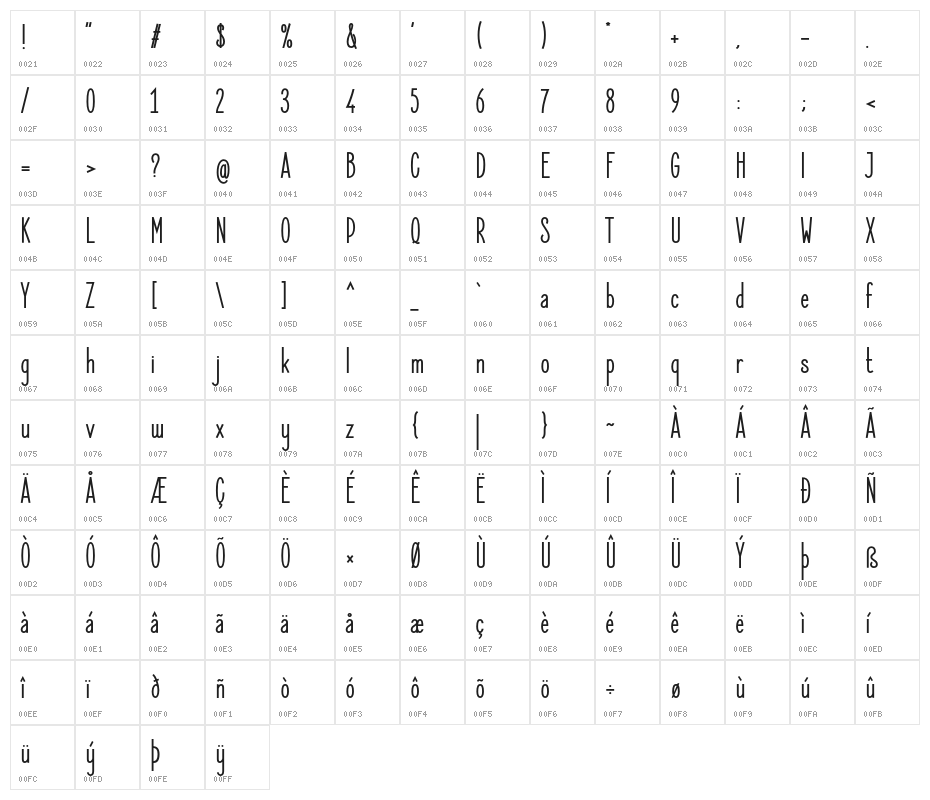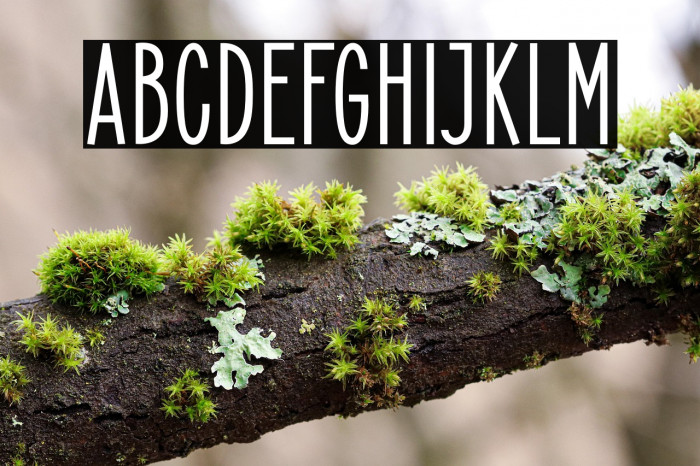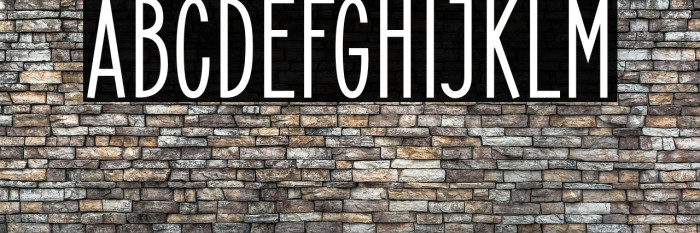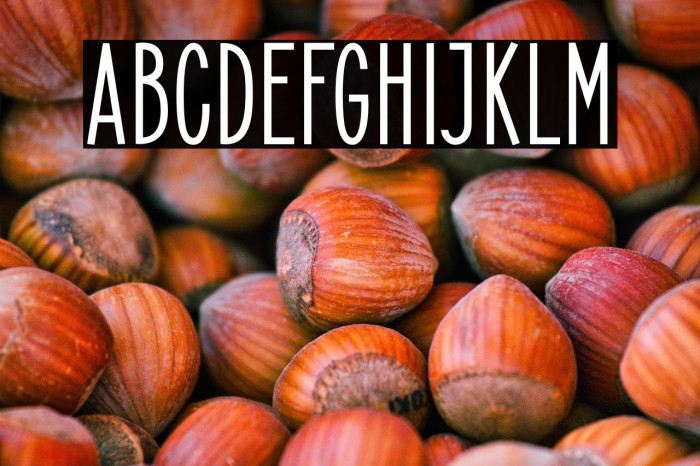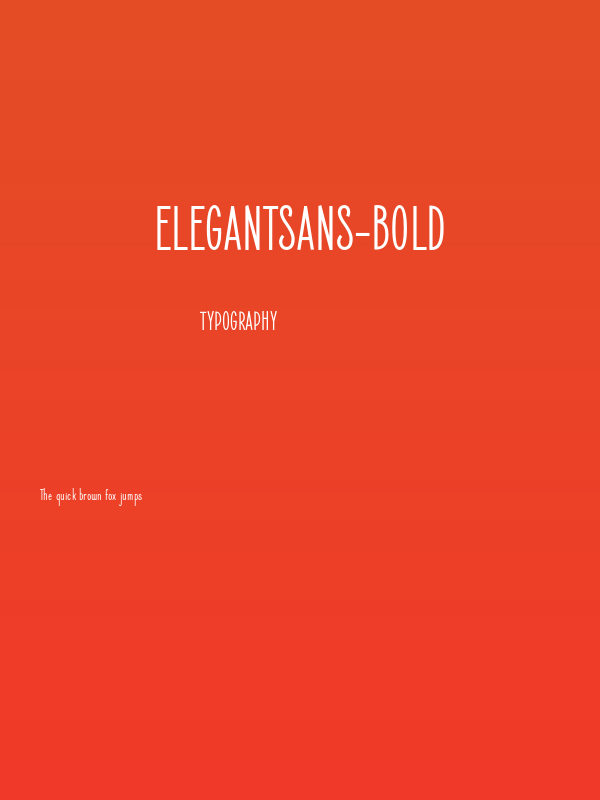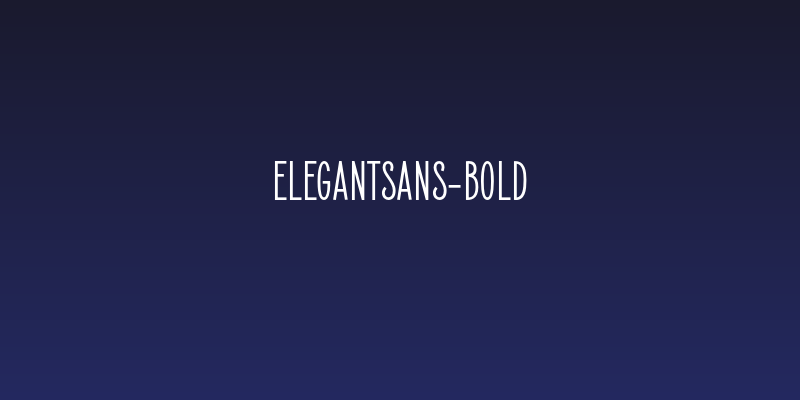
ElegantSans-Bold Font
ElegantSans-Bold Description
This font features a clean and modern sans-serif style with a bold weight. The characters are tall and narrow, giving it an elegant and sophisticated appearance. The uppercase letters are uniform in height, while the lowercase letters maintain a consistent baseline, enhancing readability. The numerals are proportional, aligning well with the overall design. Special characters are distinct and well-integrated, making this font versatile for various applications. The stroke contrast is low, providing a smooth and even texture across all characters.
Use CaseHeadlines, Logos, Branding
Proposed ProjectsIdeal for branding, headlines, posters, and digital content where a modern and elegant look is desired.